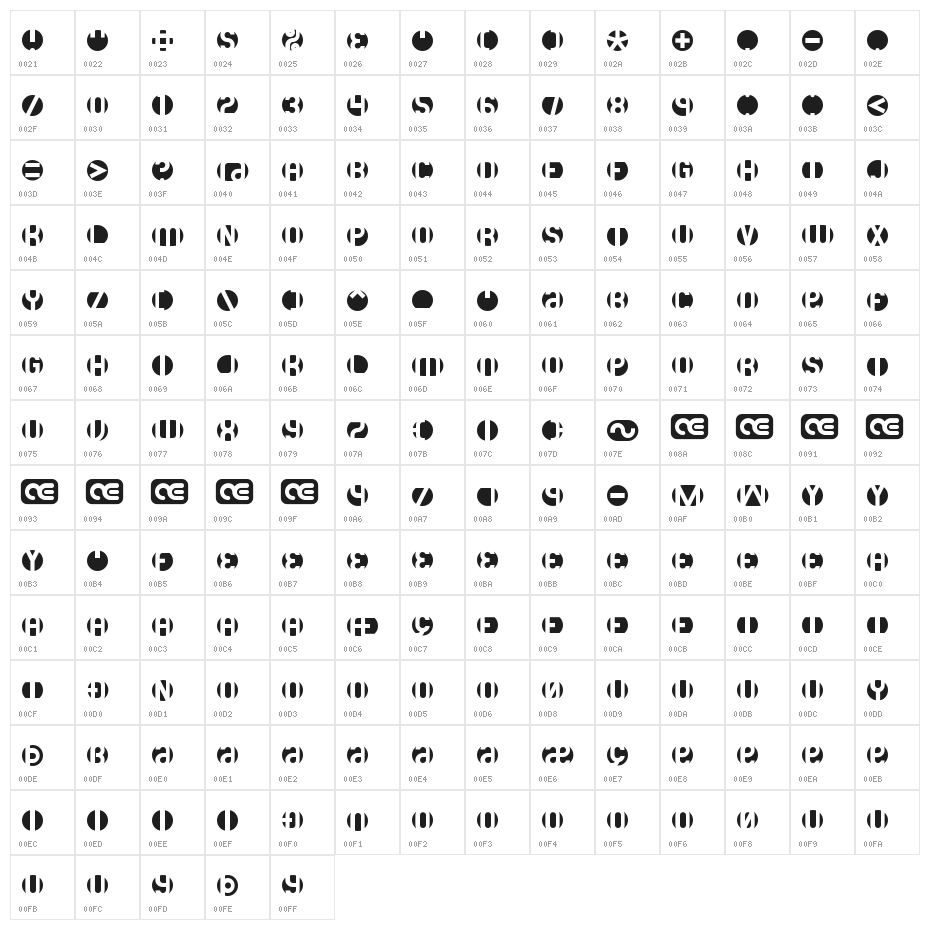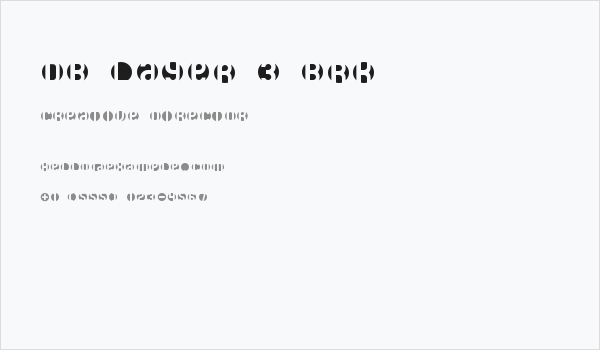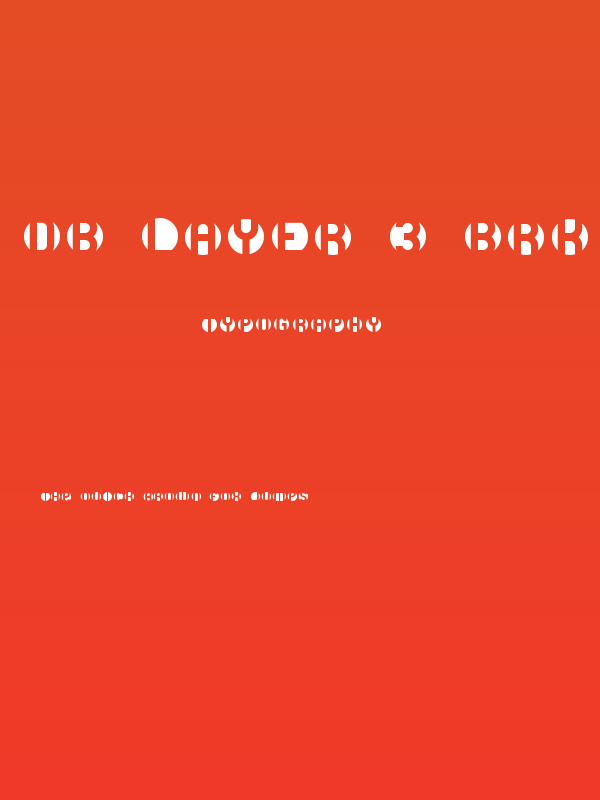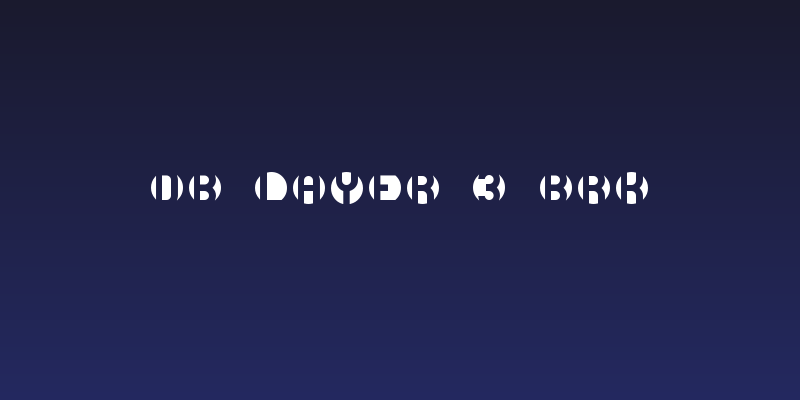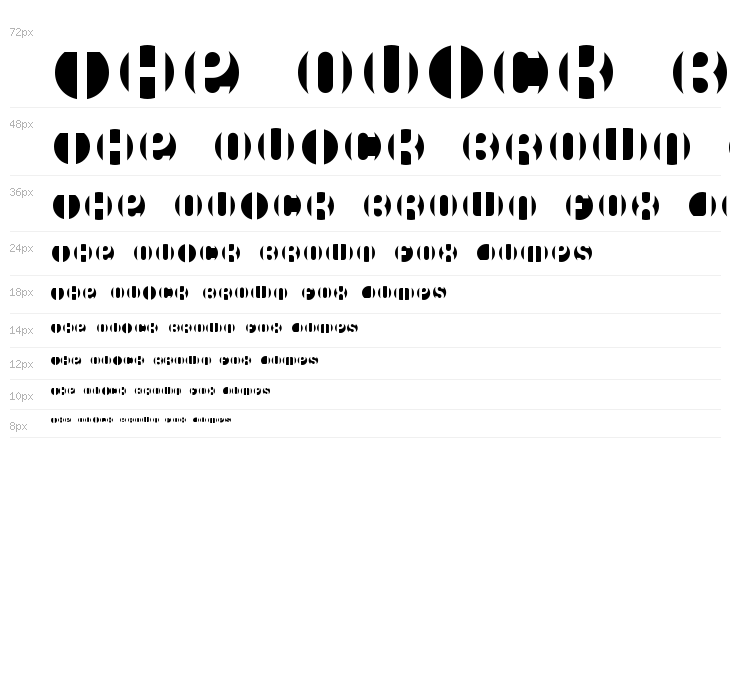
DB Layer 3 BRK Font
DB Layer 3 BRK Description
This font features a highly geometric and abstract design, characterized by its use of circular and semi-circular shapes to form each letter and number. The characters are constructed with bold, solid lines that create a sense of symmetry and balance. The unique style gives the font a futuristic and modern appearance, making it stand out with its distinct visual rhythm. The consistent use of circular motifs across all characters provides a cohesive and unified look, while the boldness of the strokes ensures high visibility and impact.
Overall StyleFuturistic
Proposed ProjectsIdeal for modern branding, futuristic designs, digital art projects, and eye-catching headlines.